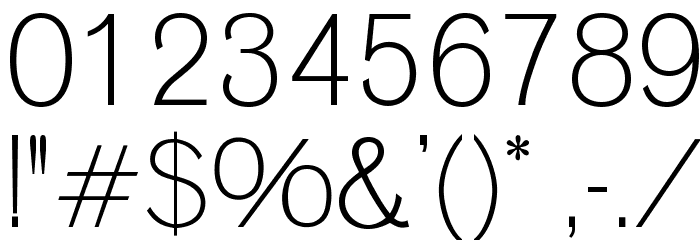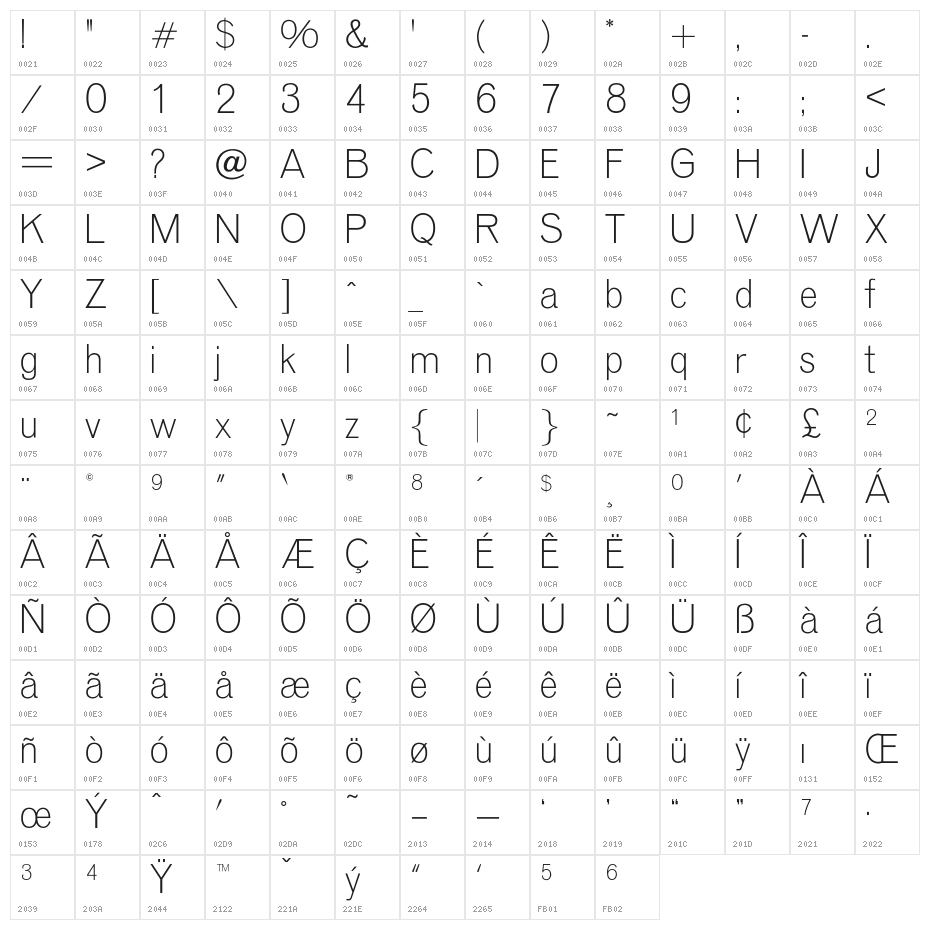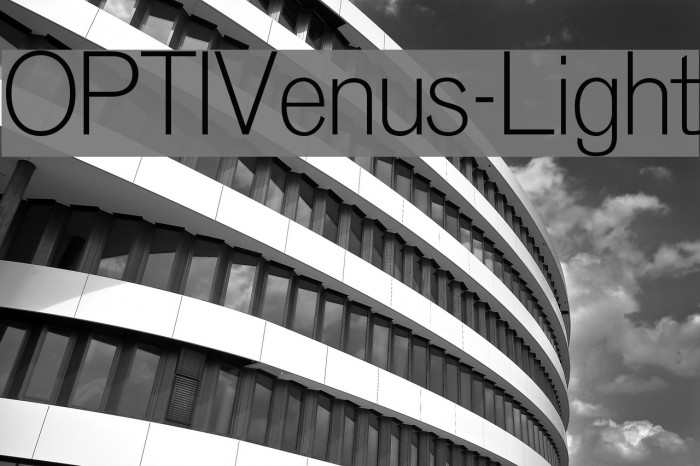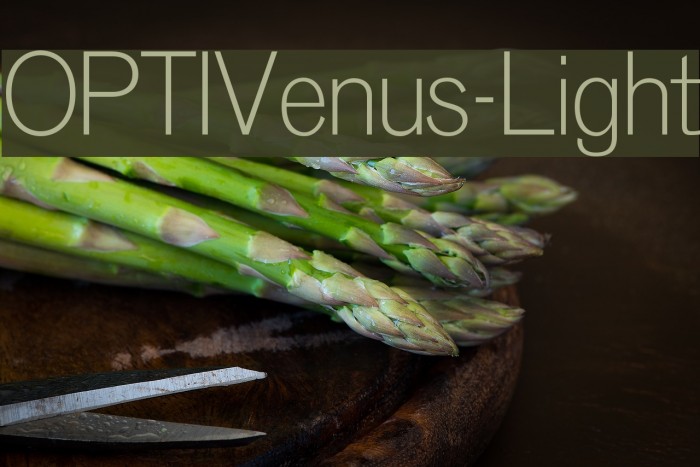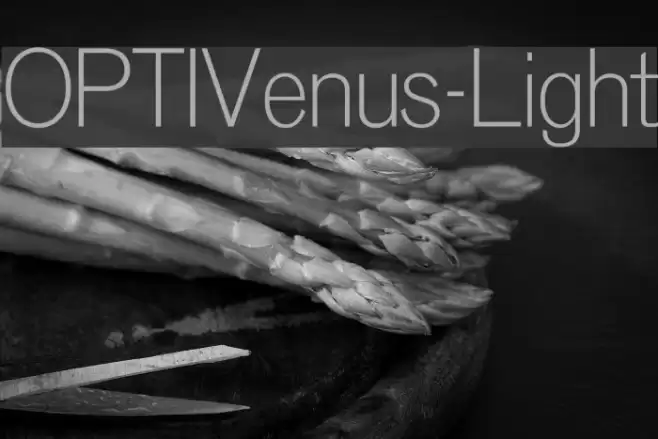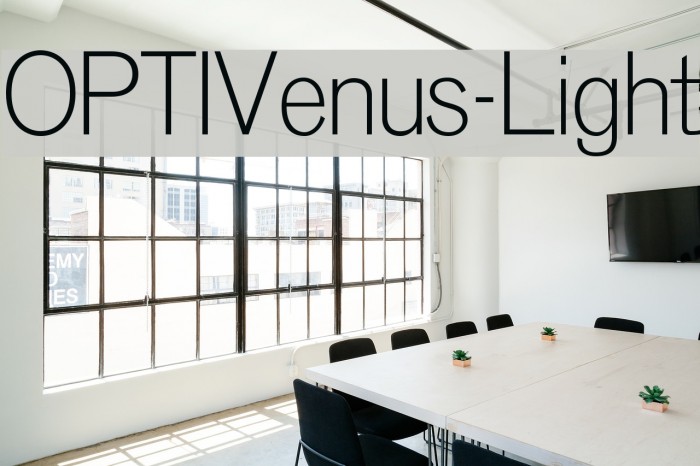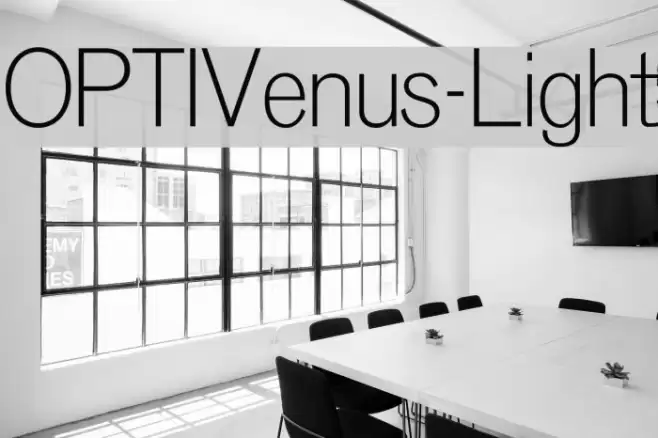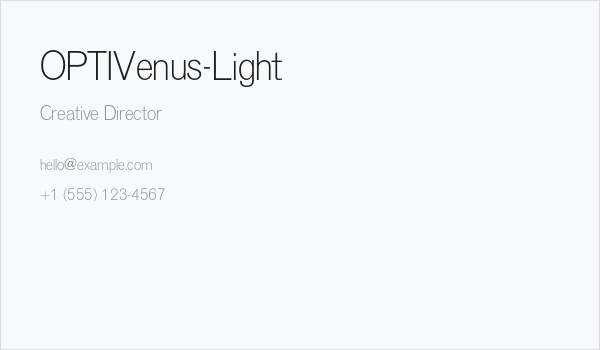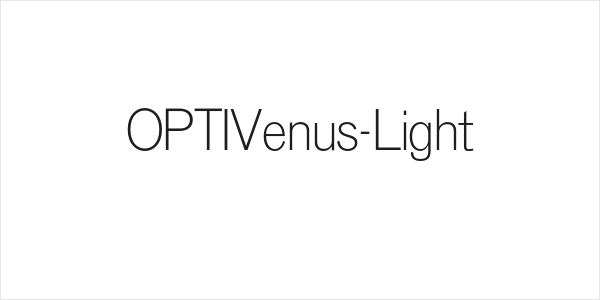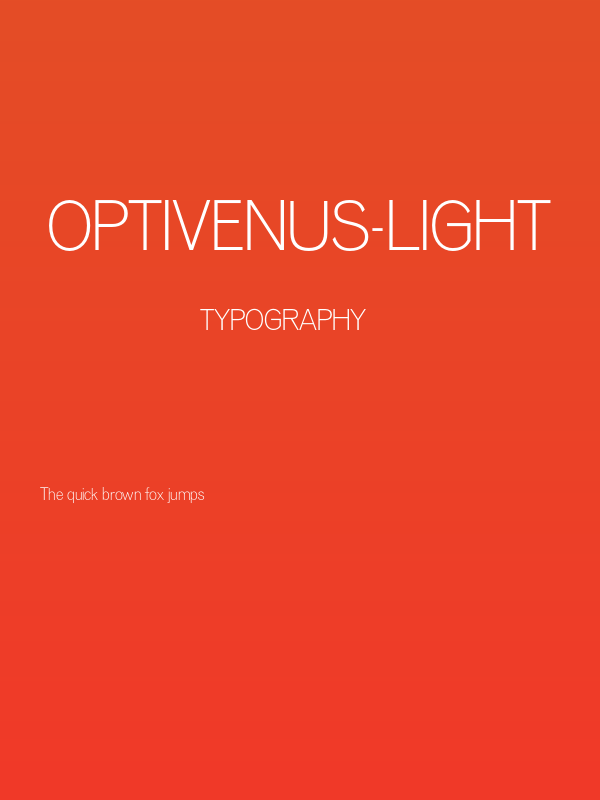
OPTIVenus-Light Font
OPTIVenus-Light Description
This font features a clean and modern sans-serif design with a light weight, making it ideal for minimalist and contemporary projects. The characters are well-proportioned with a uniform stroke width, contributing to its sleek appearance. The uppercase and lowercase letters maintain a consistent style, while the numerals and special characters are clear and legible. The overall design is straightforward, with no unnecessary embellishments, emphasizing readability and simplicity.
| Proposed Projects | Ideal for use in digital interfaces, branding, and editorial design where clarity and modern aesthetics are essential. |